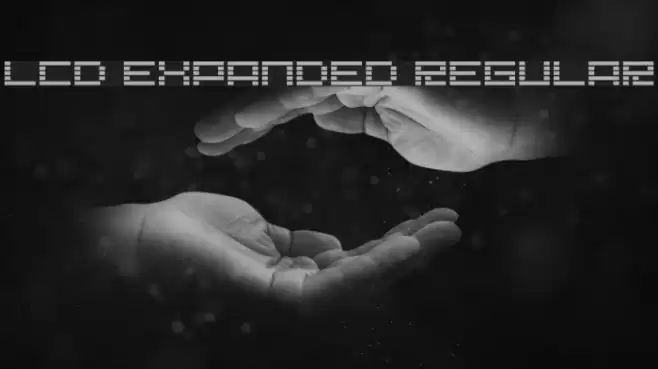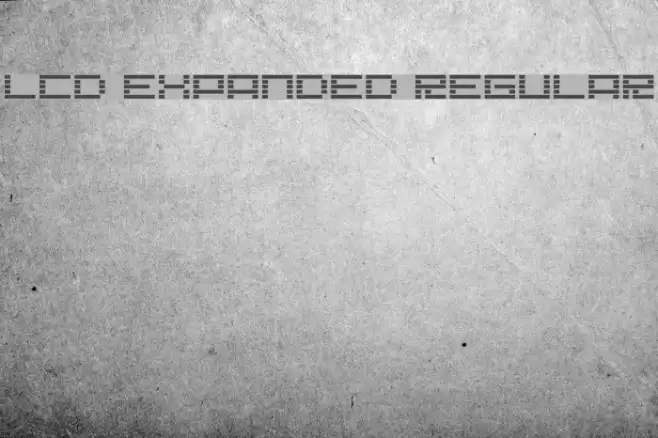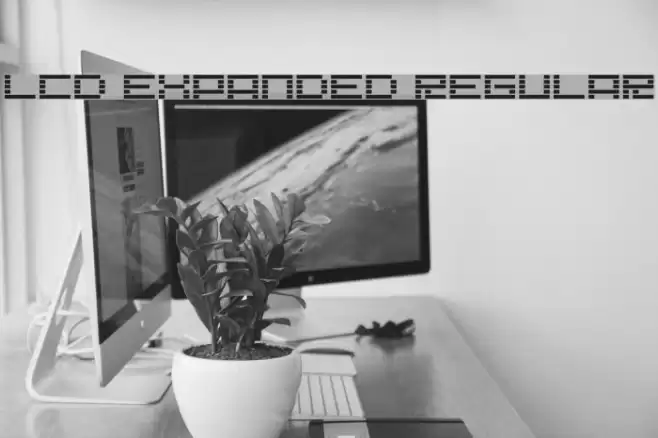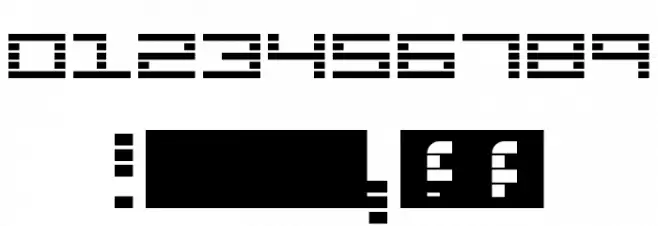
Lcd Expanded Regular Font
This font features a distinctive digital aesthetic reminiscent of old LCD displays. Each character is constructed using a grid-like pattern, giving it a pixelated and mechanical appearance. The design is highly geometric, with uniform line thickness and a modular structure that emphasizes a futuristic and technological feel. The characters are evenly spaced, maintaining a consistent rhythm across the text. This style is particularly effective for conveying a sense of precision and modernity, making it ideal for digital-themed projects.
A pixelated, grid-based font with a digital, futuristic aesthetic from Uncategorized fonts.
- Proposed Projects: Ideal for digital displays, tech-themed posters, video game interfaces, and retro-futuristic designs.